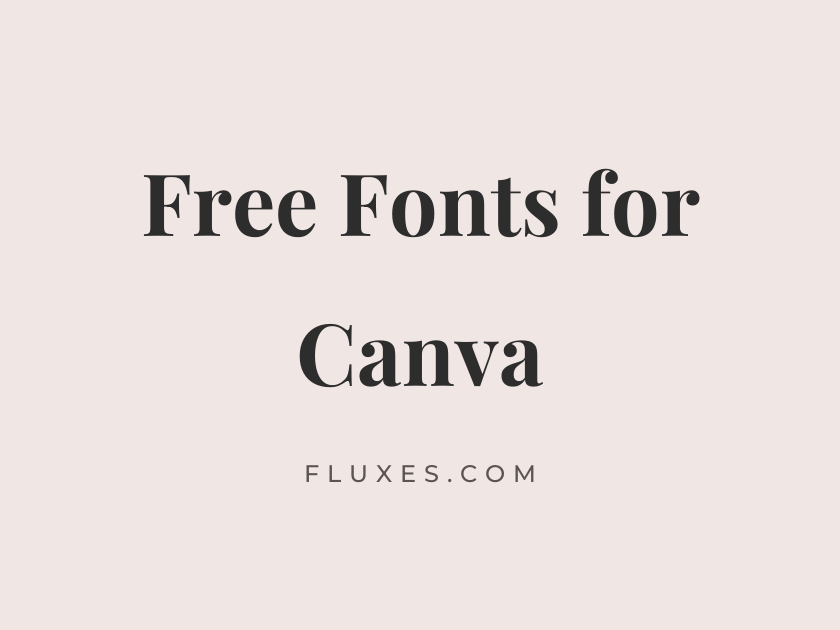
65 Best Free Fonts for Canva
Canva has made design accessible to everyone, but the templates only look as good as the type behind them. Because Canva integrates directly with Google Fonts, you can swap in a huge range of free, professionally made typefaces without ever leaving the editor, whether you are building an Instagram carousel, a wedding invitation, a resume, or a sales flyer.
The fonts below cover the full range of what a busy designer needs from Canva: clean sans-serifs for social graphics, elegant serifs for branding, bold display faces for posters, and scripts for anything that needs a personal touch. Every one of them is free on Google Fonts and ready to drop straight into a Canva project.
Elegant invitations start with elegant typography
Playfair Display is the reigning favorite for anyone chasing a high-fashion, editorial look in Canva. Its dramatic thick-thin contrast gives headlines real presence on wedding invites, magazine covers, and Pinterest graphics.
Pair it with a plain sans-serif for body copy and it instantly reads as premium branding rather than a template.
Warm, readable serif for stories and quotes
Lora has a gentle calligraphic curve that keeps it from feeling stiff, making it a reliable pick for blog graphics, quote cards, and long captions where readability matters as much as style.
Built for long-form reading on screens
Merriweather was designed specifically for on-screen reading, with sturdy letterforms that hold up even when a Canva graphic gets resized for different platforms. It works especially well in newsletter headers and ebook covers.
Timeless serif for classic branding projects
Rooted in a 16th-century typeface, EB Garamond brings an understated, literary elegance to anything that needs to feel established rather than trendy. It is a favorite for book covers and formal certificates built in Canva.
Delicate serif for luxury moodboards
Cormorant Garamond is thinner and more refined than its Garamond cousins, which makes it gorgeous at large sizes but genuinely muddy in small captions. Save it for headlines on invitations, perfume labels, and boutique branding.
Reliable serif for resumes and reports
Libre Baskerville was optimized for screens, so it stays crisp in Canva documents like resumes, cover letters, and business proposals where a traditional, trustworthy tone matters.
Versatile serif that reads well anywhere
PT Serif strikes a practical middle ground between formal and friendly, which is why it turns up so often in Canva presentations and printed newsletters that need to look polished without trying too hard.
Slab serif built for clarity on screen
Originally designed for e-readers, Bitter carries slightly blocky serifs that give it a confident, grounded feel. It suits infographics and data-heavy Canva slides that still want a touch of warmth.
Book-style serif for quotes and testimonials
Crimson Text was modeled on old-style book typefaces, giving it a scholarly, printed feel that flatters testimonial graphics and pull quotes.
Clean serif companion for Source Sans
Source Serif 4 was built to sit alongside Adobe’s Source Sans family, so it pairs almost too easily with countless sans-serifs already in Canva. It is a dependable, low-fuss choice when you want a serif that will not fight for attention.
Sturdy serif headlines for editorial layouts
Domine has a confident weight that makes it read well in bold headlines while still working at body text sizes, a rare balance that suits Canva blog banners and magazine-style posts.
Contemporary serif for modern editorial design
Spectral leans slightly geometric for a serif, giving it a fresher, more contemporary feel than traditional book faces. It fits well in modern portfolio layouts and digital magazine spreads.
Geometric sans for bold social media posts
Poppins is everywhere in Canva for good reason. Its perfectly round geometry and generous weights make headlines pop on Instagram and Pinterest graphics, and it stays friendly rather than cold even at heavy weights.
Because it is so widely used, consider pairing it with a distinctive serif so your design does not blend into every other template on the platform.
Confident sans-serif for modern branding kits
Montserrat was inspired by old Buenos Aires signage, and that geometric, urban confidence still shows through today. It works equally well as a logotype, a poster headline, or a clean body font in a brand style guide.
Refined sans-serif for minimalist presentations
Raleway has an elegant thinness at lighter weights that suits minimalist branding and stylish slide decks. It can feel a little fragile in very small text, so reserve the lighter cuts for headlines.
Rounded sans-serif for friendly, approachable graphics
Nunito’s soft, rounded terminals give it a warm, approachable personality that suits community posts, event flyers, and anything aimed at a casual audience.
With this range of free Google Fonts available directly inside Canva, there is rarely a reason to settle for an overused default. Whether the project calls for editorial elegance, playful energy, or clean corporate clarity, there is a genuinely well-made typeface here ready to carry it.